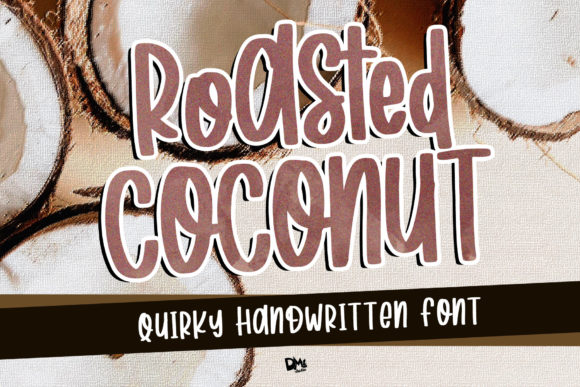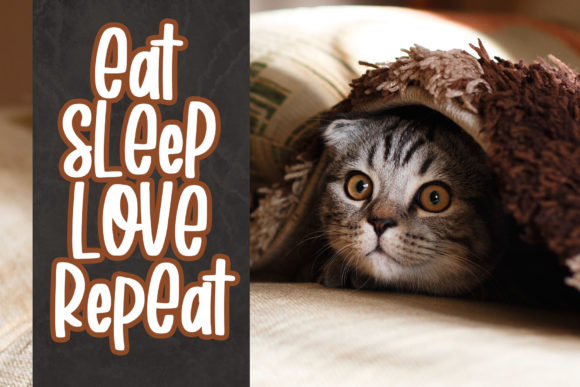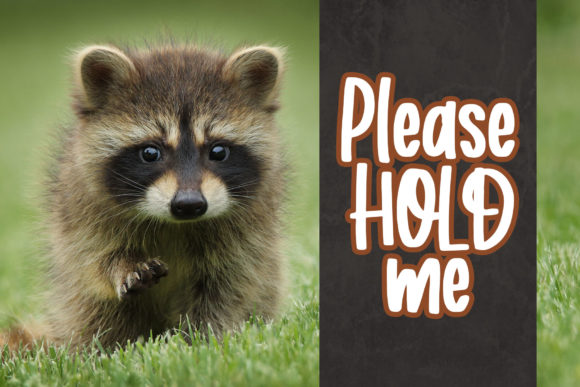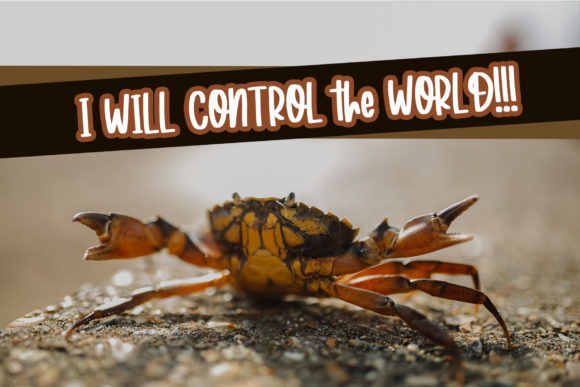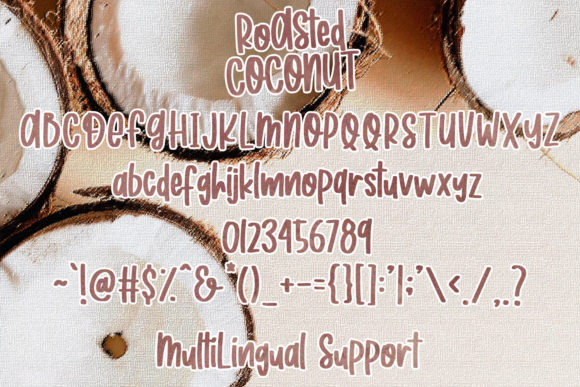
Roasted Coconut Font
About Roasted Coconut Font
Roasted Coconut is an incredibly fun and playful script that will add a touch of personality to your next design idea. Fall in love with its authentic feel!